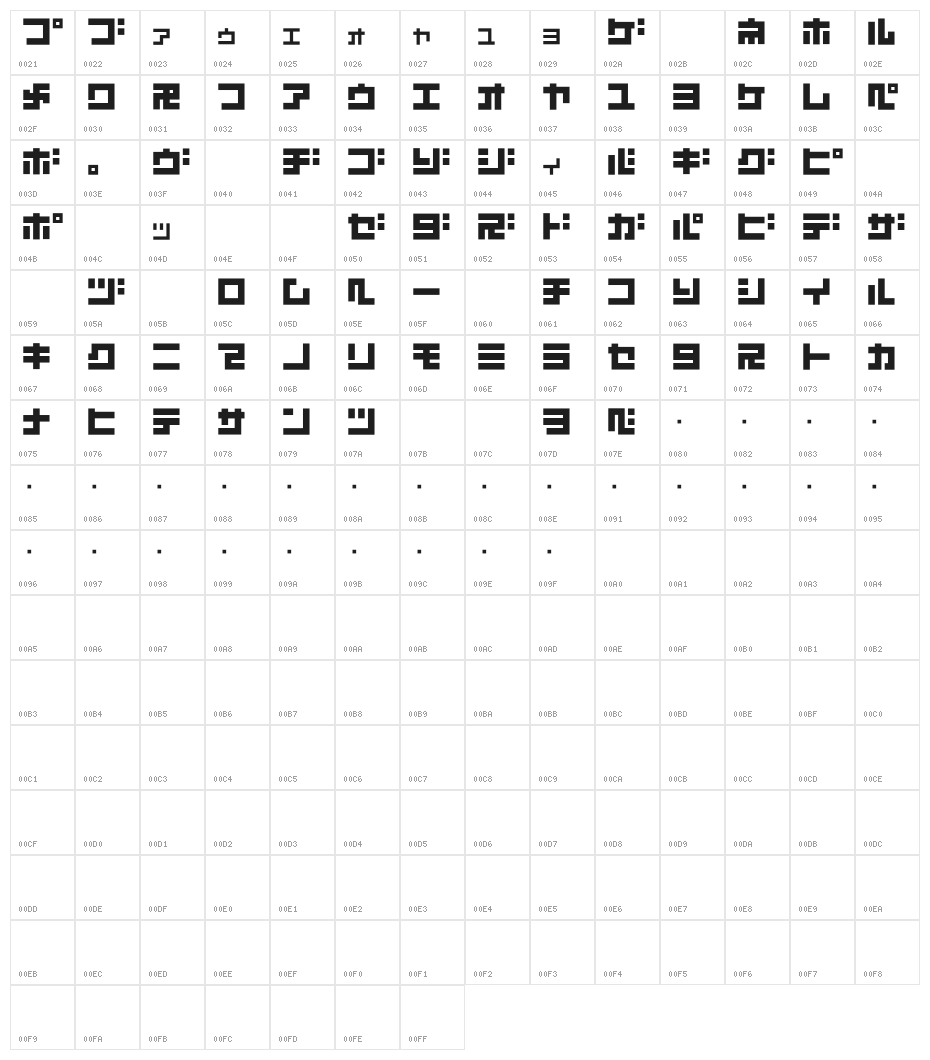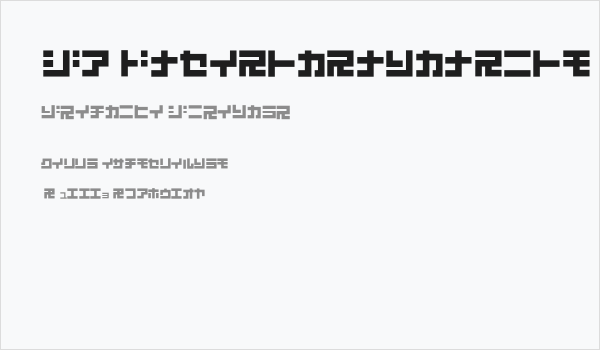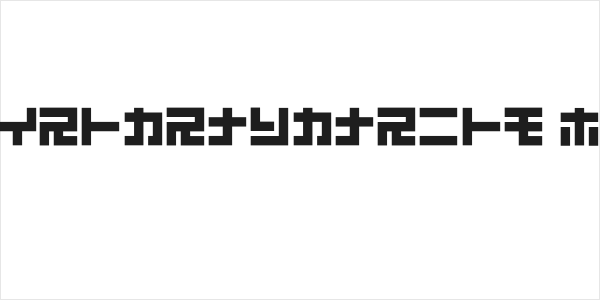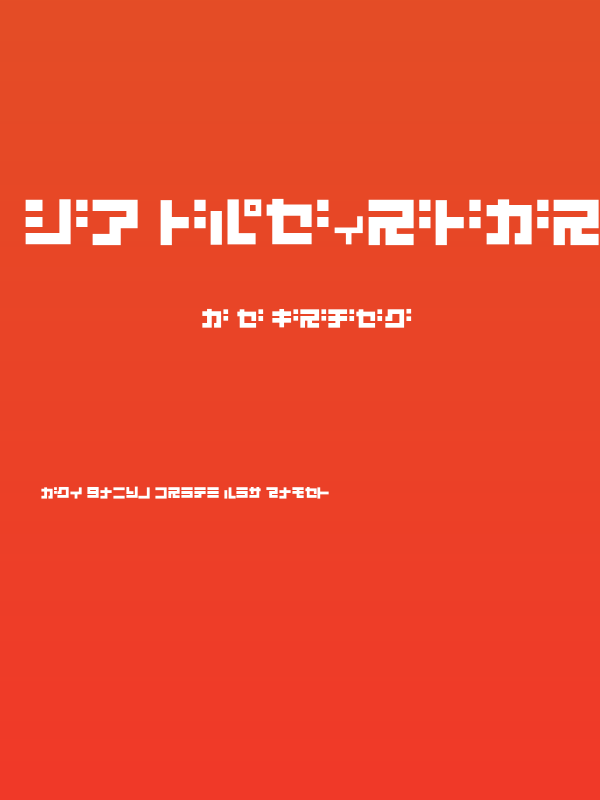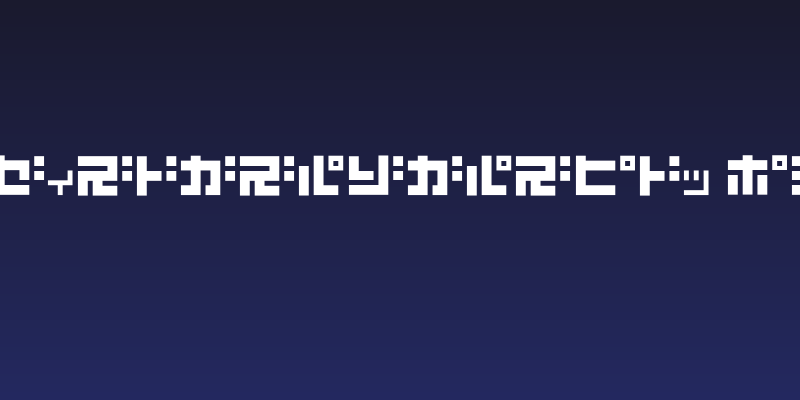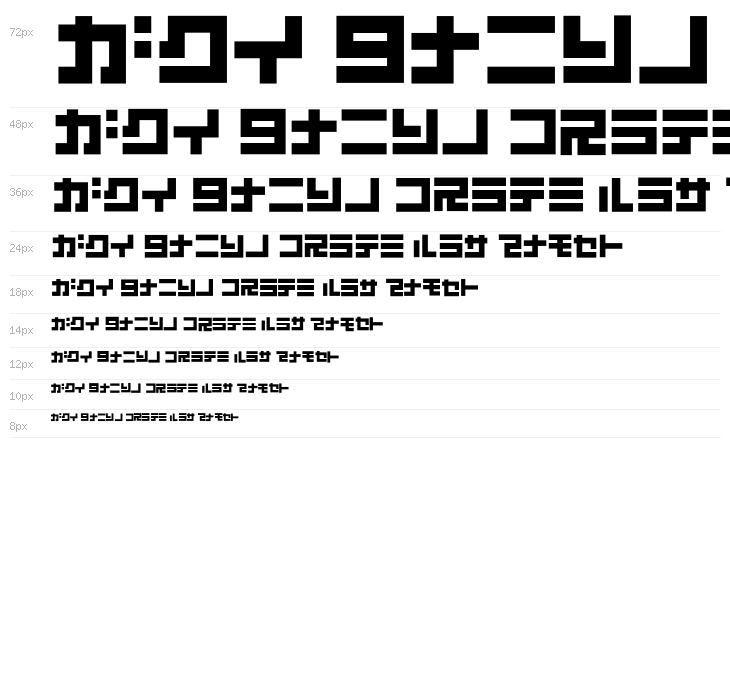
D3 Superstructurism Kat_In Font
D3 Superstructurism Kat_In Description
This font features a bold, geometric style with a strong emphasis on angular shapes and sharp edges. The characters are constructed with uniform thickness, creating a cohesive and structured appearance. The design is reminiscent of digital or futuristic aesthetics, with a blocky and robust form that conveys a sense of modernity and strength. The uniformity in the character design ensures readability while maintaining a unique visual identity. This font is particularly suitable for projects that require a contemporary and technological feel.
| Use Case | Logos, Headlines |
| Proposed Projects | Ideal for technology branding, video game interfaces, sci-fi movie posters, and modern digital art projects. |